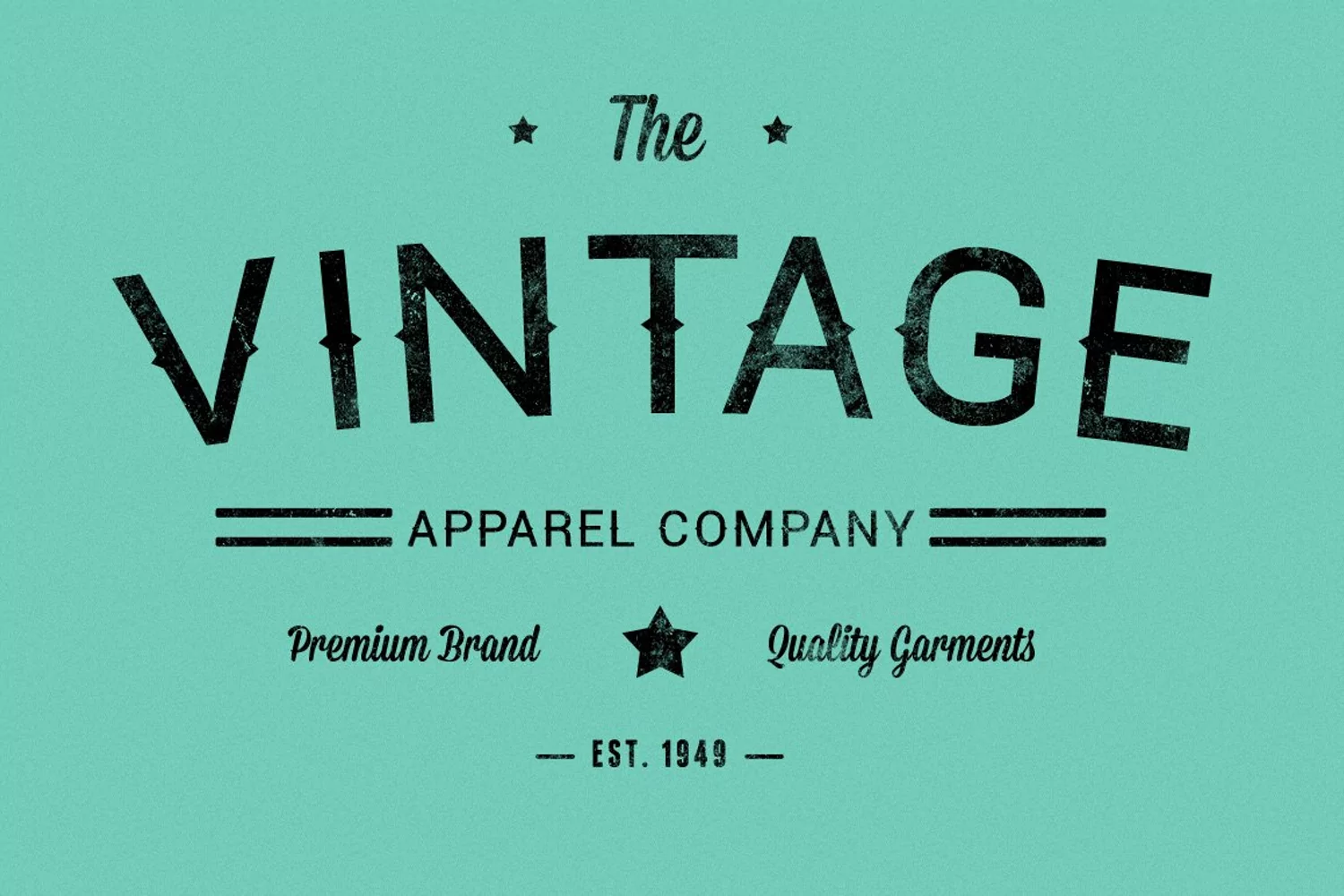
Hammer is modern vintage display typeface.
Retro Style Font. Font for Hipsters :)
Great for posters, logos, packaging, invitations, website titles .. Also great for Halloween themes.